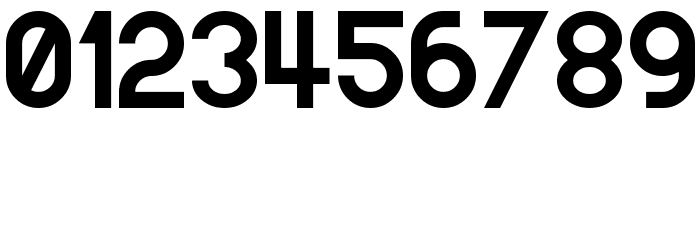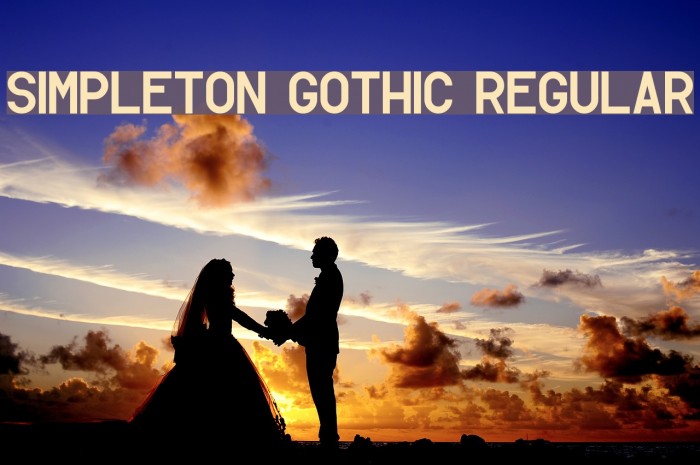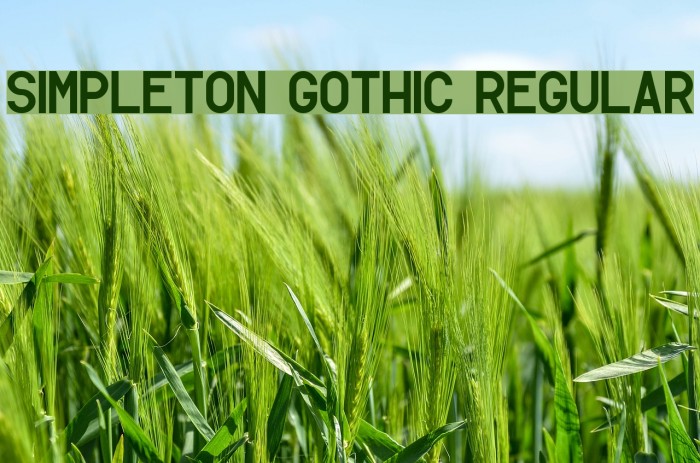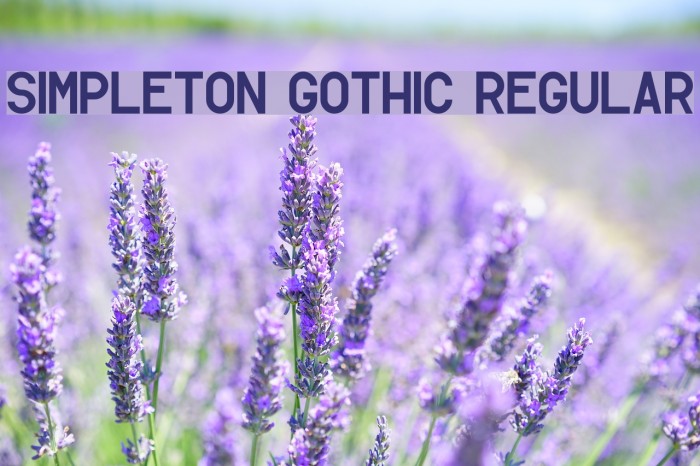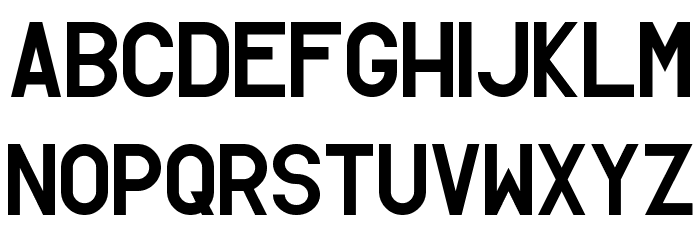
Simpleton Gothic Regular Font
Simpleton Gothic Regular Description
This font features a bold and geometric sans-serif style, characterized by its clean lines and modern aesthetic. The uppercase and lowercase letters maintain a consistent height, contributing to a uniform appearance. The numerals are distinct and easily readable, with a zero that includes a diagonal slash to differentiate it from the letter 'O'. The overall design is straightforward and functional, making it suitable for a variety of applications where clarity and impact are essential.
| Use Case | Headlines, Logos, Signage |
| Proposed Projects | Ideal for branding, advertising, signage, and digital interfaces where a strong and clear typeface is required. |